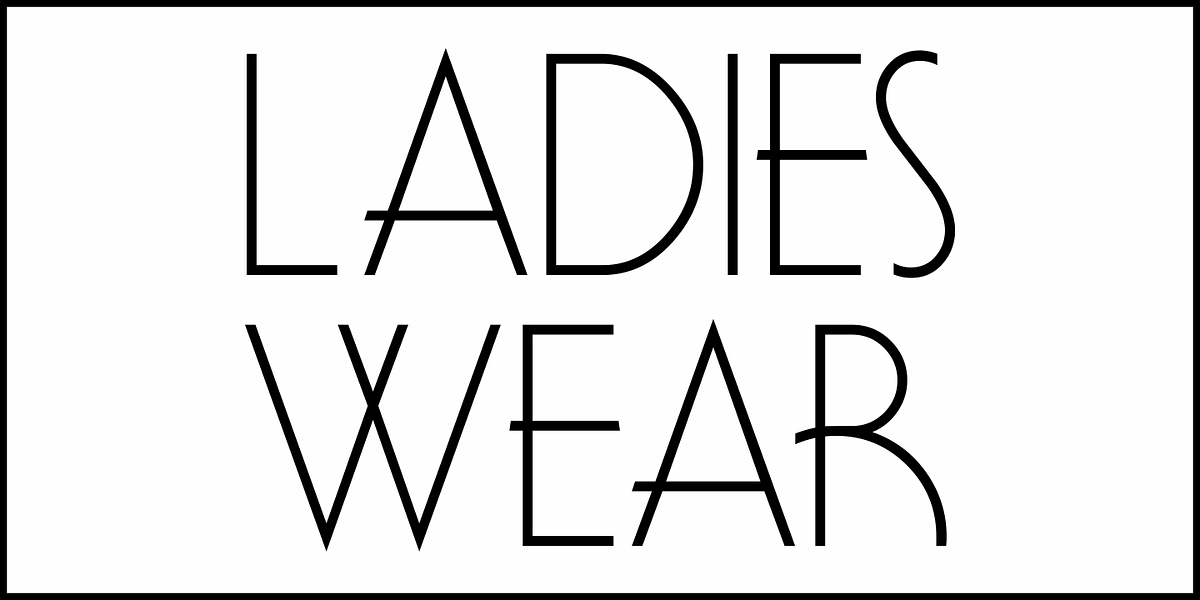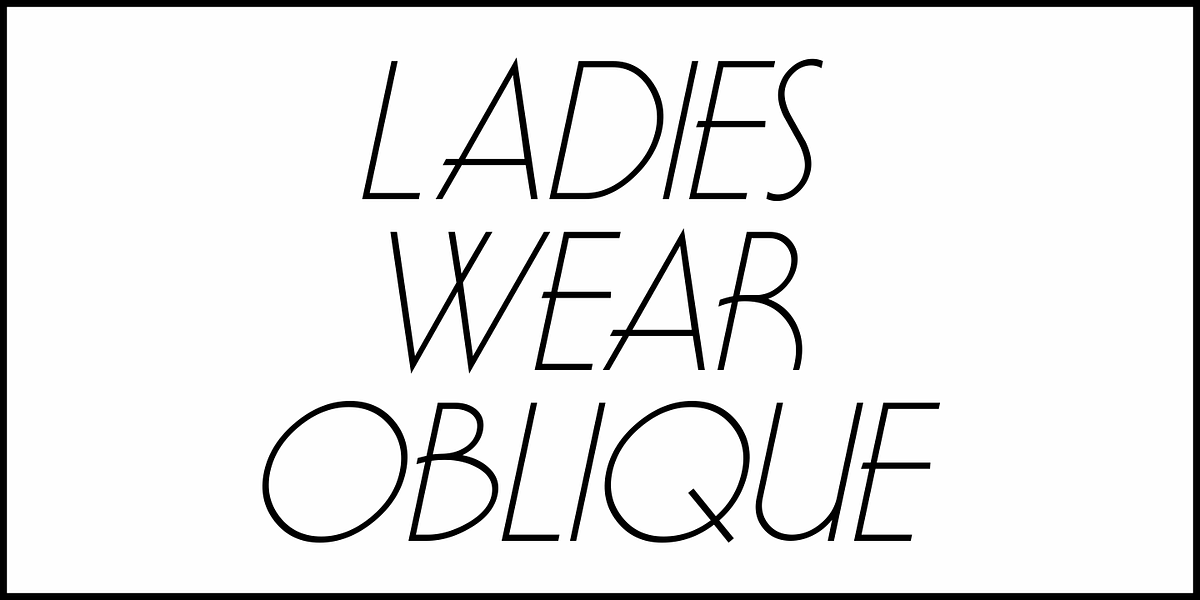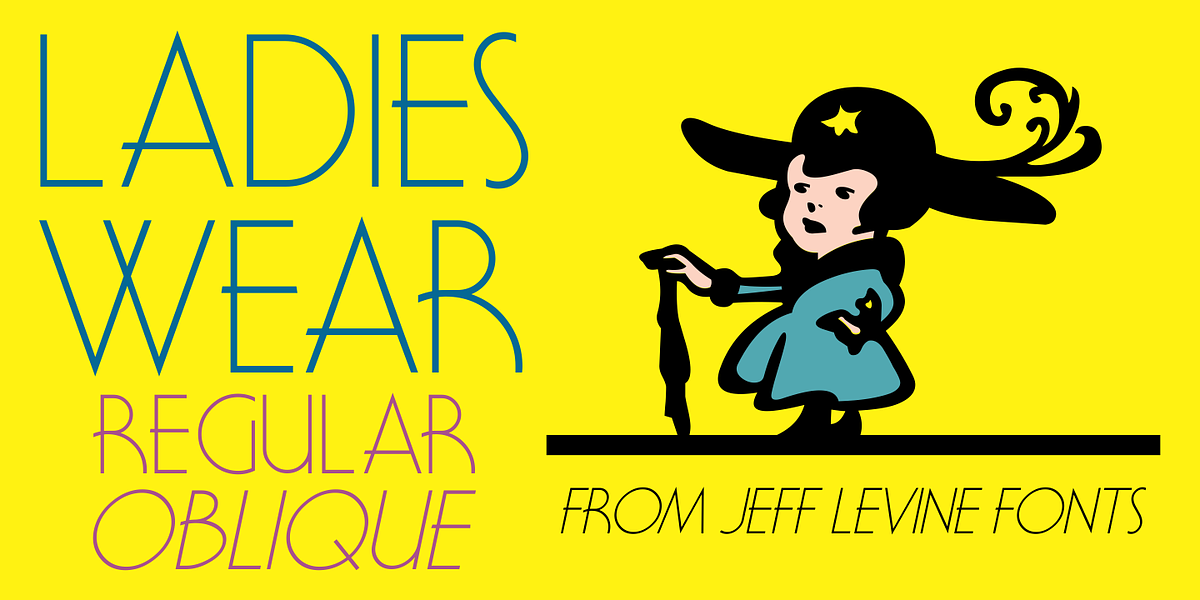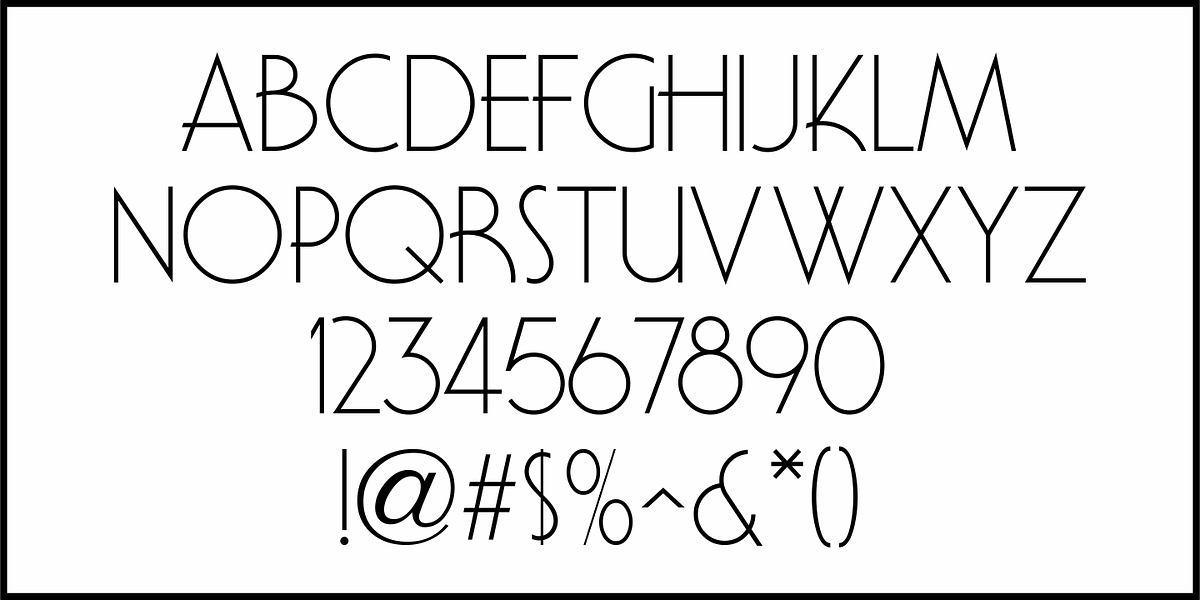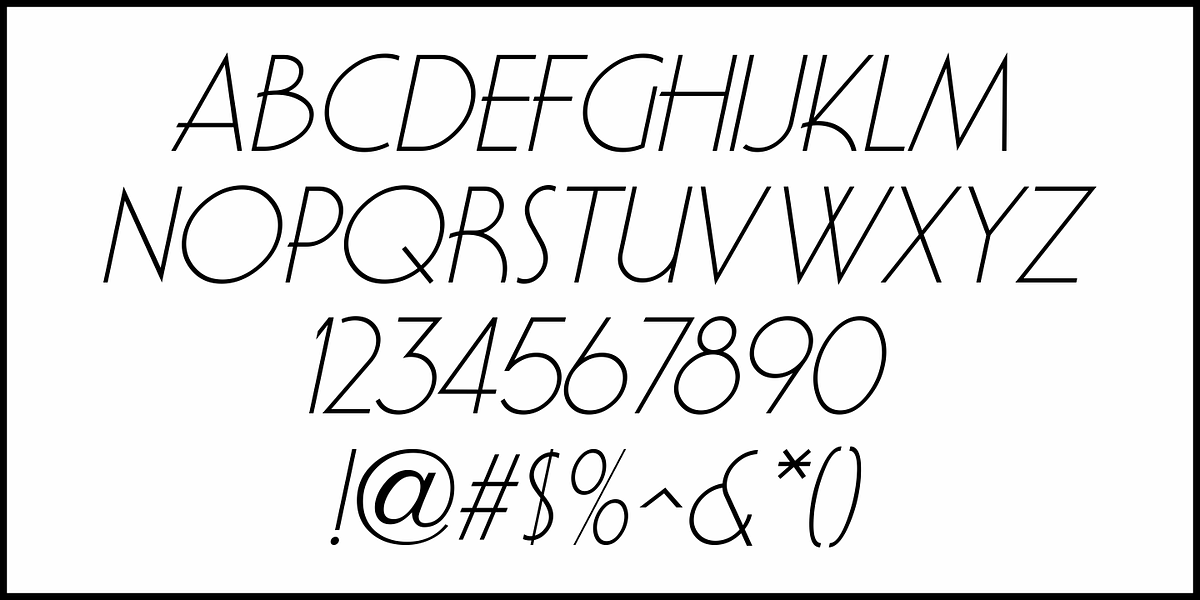
Ladies Wear JNL
Aside from his 1920s and 1960 editions of Sam Welo’s “Studio Handbook – Letter and Design for Artists and Advertisers”, Welo also published “Lettering - Practical and Foreign” in 1930.
A monoline Art Deco Alphabet from that book is now available digitally as Ladies Wear JNL in both regular and oblique versions.